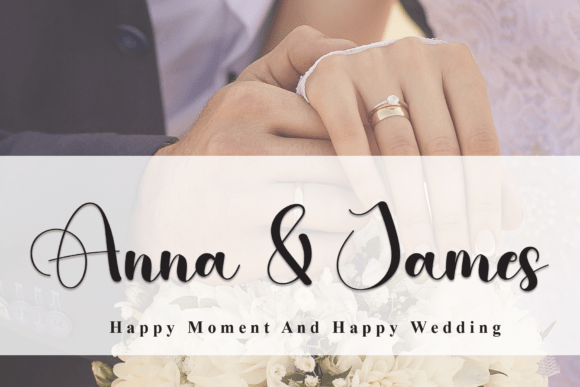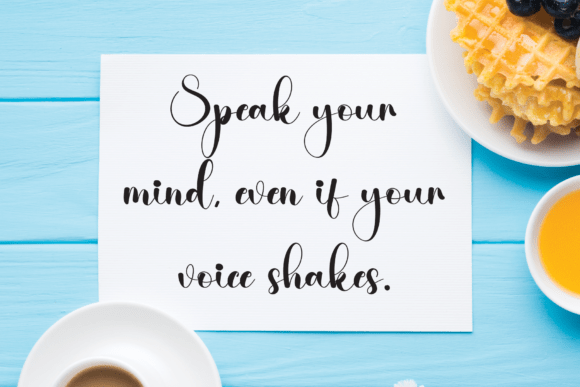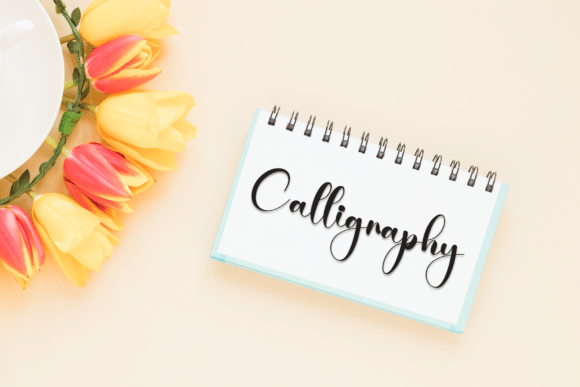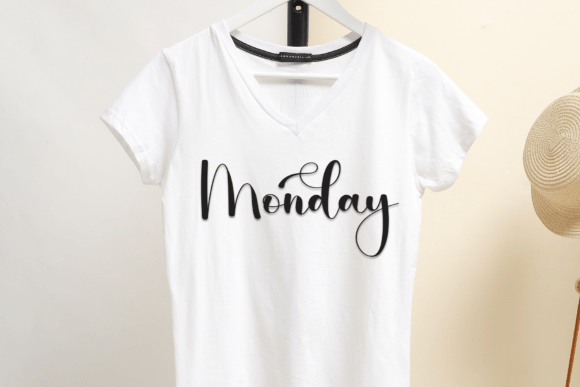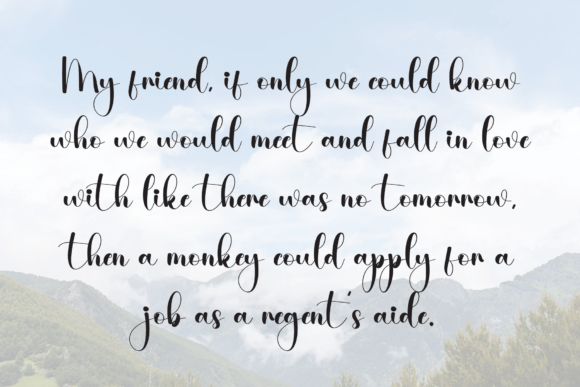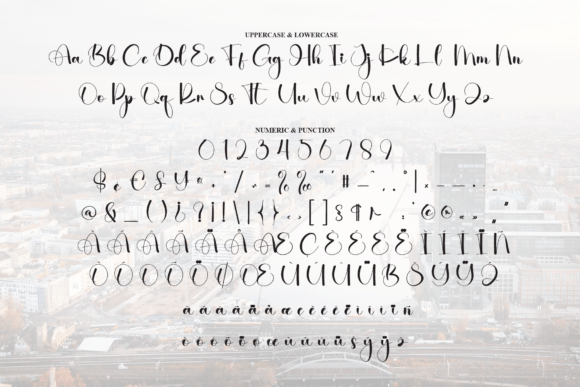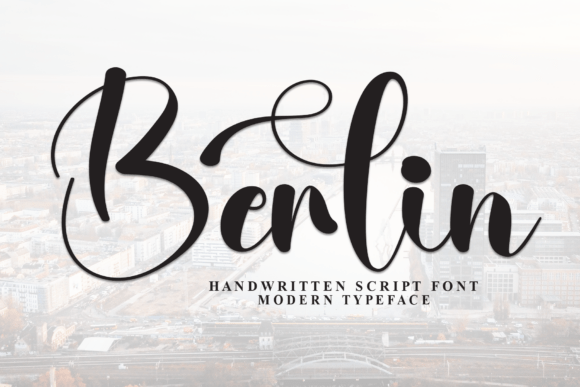
Introducing Berlin Font: A Bold and Elegant Handwritten Script Font
In the world of typography, a good font can make all the difference in the success of a design project. For designers and crafters looking for a font that exudes modern charm and timeless sophistication, look no further than Berlin Font. This stunning handwritten script font is perfect for a wide range of design applications, from branding and invitations to logos and social media graphics.
A Font that Blends Modernity with Elegance
Berlin Font is a masterfully crafted handwritten script font that seamlessly blends modern charm with timeless elegance. Its stylish swashes and fluid curves give it a sophisticated feel that’s perfect for designs that require a touch of luxury and refinement. Whether you’re working on a high-end branding project or a beautiful wedding invitation, Berlin Font is sure to make a lasting impression.
Key Features of Berlin Font
• Stylish Swashes: Berlin Font features beautiful swashes that add a touch of elegance and sophistication to any design.
• Fluid Curves: The font’s fluid curves give it a smooth, handwritten feel that’s perfect for designs that require a personal touch.
• Modern Charm: The font’s modern design makes it perfect for designs that require a fresh and contemporary feel.
• Timeless Sophistication: Berlin Font’s elegant design ensures that it will remain a timeless classic for years to come.
Berlin Font is a versatile font that’s perfect for a wide range of design applications, including:
• Branding: Use Berlin Font to create a luxurious and sophisticated brand identity that will leave a lasting impression on your customers.
• Invitations: Add a touch of elegance and refinement to your wedding invitations, birthday invitations, and other special occasion invites.
• Logos: Create a stunning logo that showcases your brand’s personality and style with Berlin Font.
• Social Media Graphics: Use Berlin Font to create eye-catching social media graphics that will help you stand out from the crowd.
Why Choose Berlin Font?
With so many fonts available, why choose Berlin Font? Here are just a few reasons why designers and crafters love this stunning handwritten script font:
• Unique and Eye-Catching: Berlin Font is a unique and eye-catching font that’s sure to make your designs stand out from the crowd.
• Elegant and Refined: The font’s elegant design makes it perfect for designs that require a touch of luxury and refinement.
• Versatile: Berlin Font is a versatile font that can be used for a wide range of design applications.
In conclusion, Berlin Font is a stunning handwritten script font that’s perfect for designers and crafters looking for a bold and elegant font that blends modern charm with timeless sophistication. With its stylish swashes, fluid curves, and PUA-encoded design, Berlin Font is sure to make a lasting impression on your designs. Whether you’re working on a branding project, creating invitations, or designing social media graphics, Berlin Font is the perfect choice.